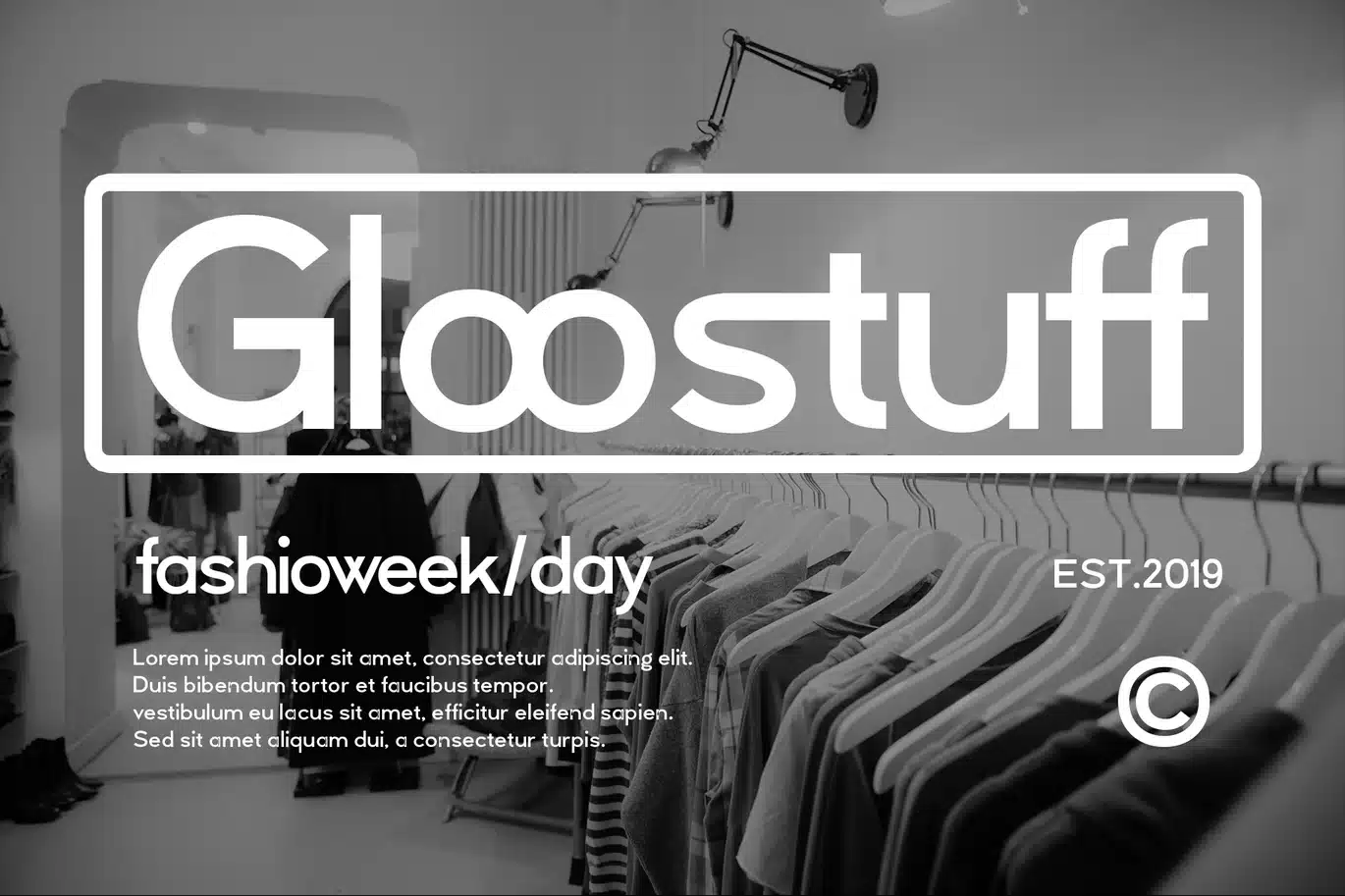
Garve Font
Garve is a modern sans-serif font with a minimalist approach that prioritizes simplicity of form and visual refinement. The letterforms are clean, proportional, and designed with smooth, consistent lines, creating an elegant and professional look.
The font's main characteristic lies in its rounded and smooth shapes, especially the curves of letters like "g" and "a," which feel unique yet remain easy to read. Ligature details also add aesthetic value, allowing the letterforms to appear more unified and refined.
With its balanced thickness and stable structure, Garve conveys a modern, calm, and premium feel without appearing overly overdone. This font is highly versatile for use in a variety of design needs, from branding and editorial to UI/UX, to digital content that requires a clean and sophisticated look.
Overall, Garve embodies a refined minimalist style—combining clarity, beauty, and a touch of exclusivity in one visual whole.